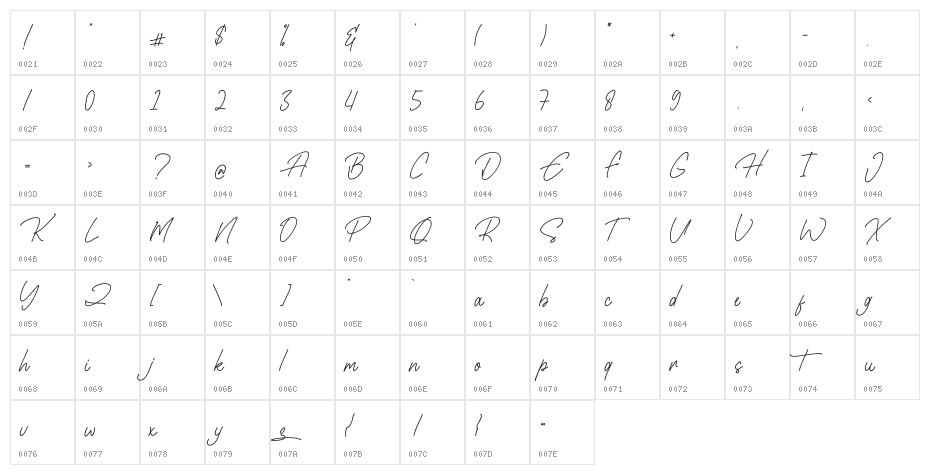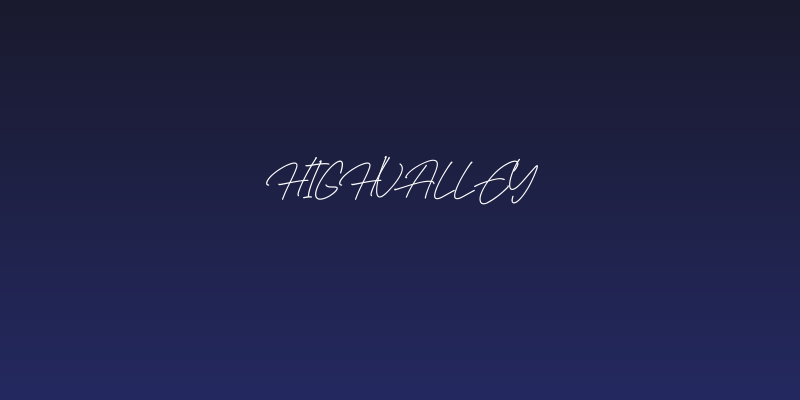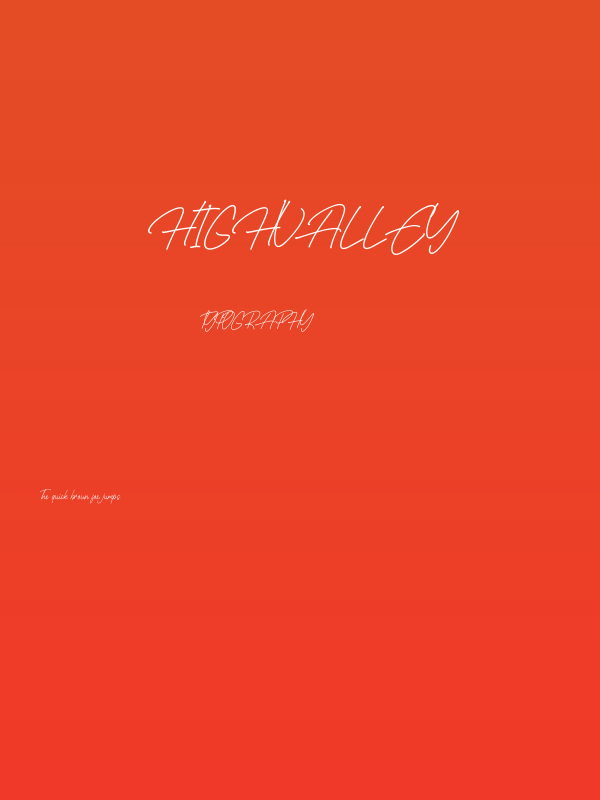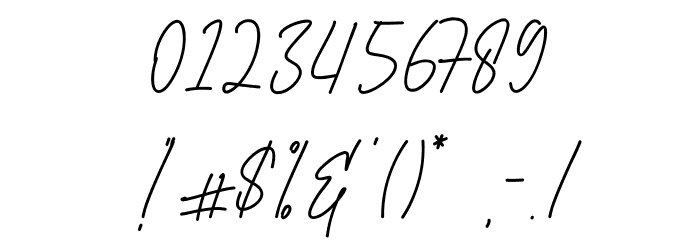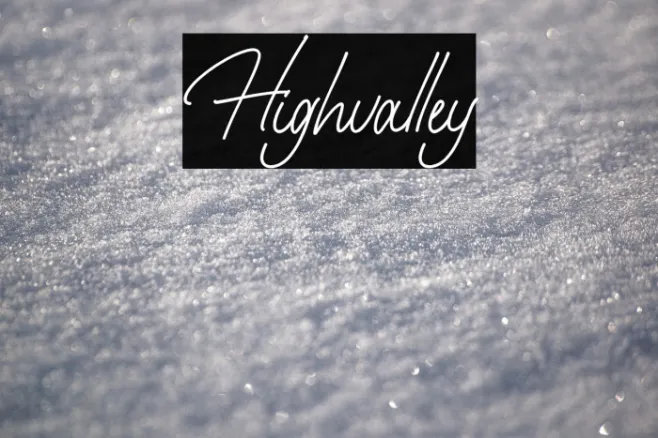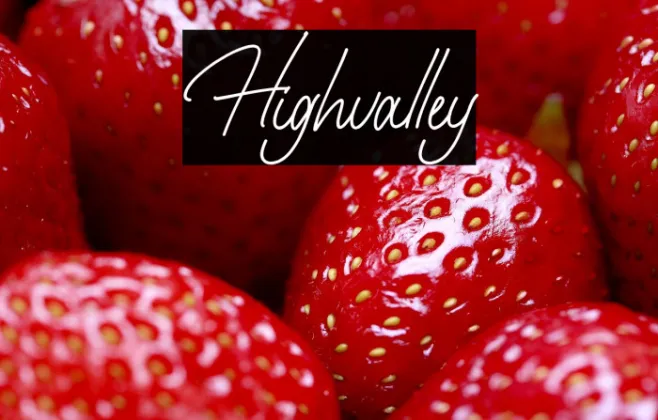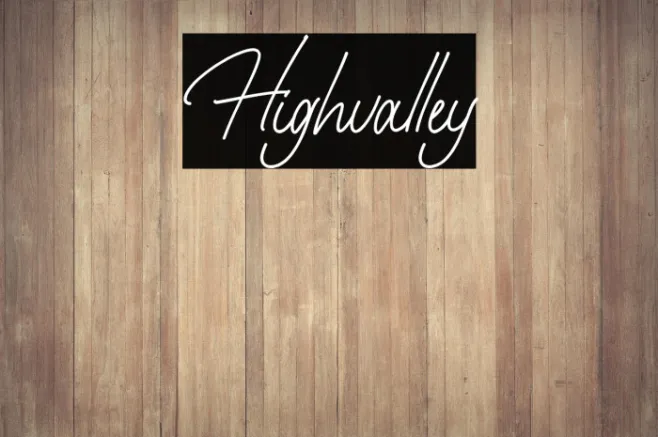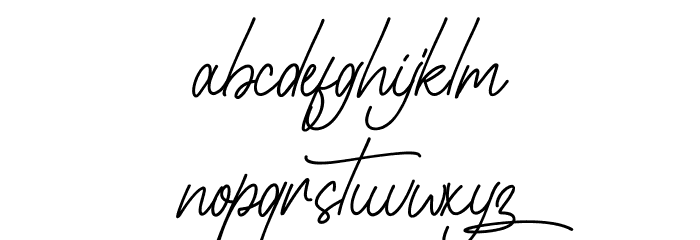
Highvalley Font
Highvalley Description
This font features an elegant, flowing script style that mimics natural handwriting. The characters are connected with smooth, continuous strokes, giving it a fluid and dynamic appearance. The uppercase letters are slightly larger and more ornate, while the lowercase letters maintain a consistent, cursive form. Numbers and special characters are designed to blend seamlessly with the alphabet, maintaining the overall aesthetic. The font's thin lines and delicate curves convey a sense of sophistication and grace, making it suitable for formal and decorative purposes.
HIGHVALLEY UPPERCASE
HIGHVALLEY LOWERCASE
HIGHVALLEY OTHER CHARS
| Proposed Projects | Ideal for wedding invitations, greeting cards, personal branding, and elegant logos. |